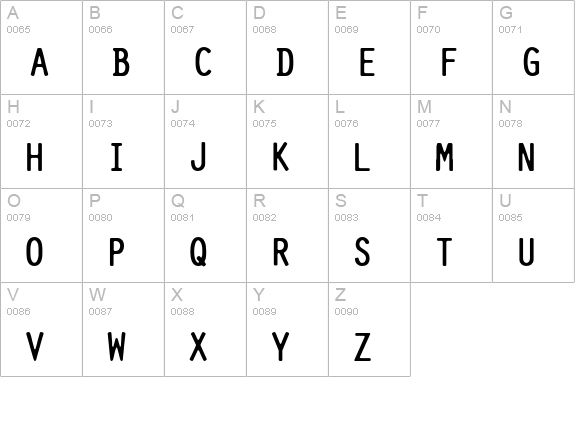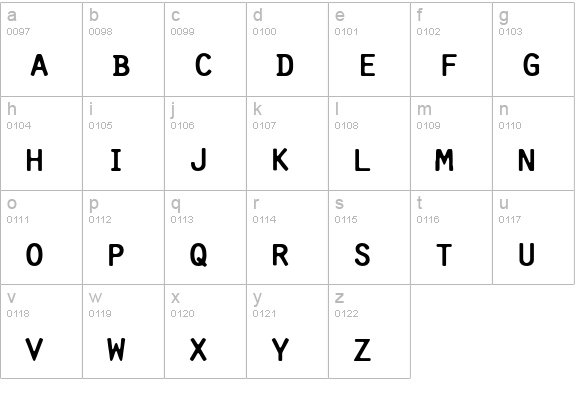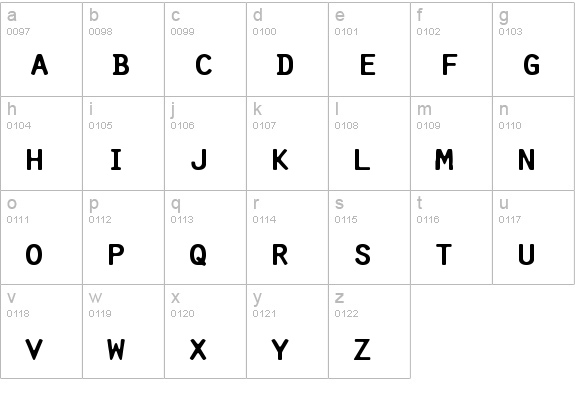
Pure-Capital Font Details
Pure-Capital font is a modern and sleek typeface that exudes sophistication and elegance. Its sharp, clean lines and bold capital letters make it perfect for creating eye-catching headlines, titles, and logos. This versatile font is suitable for a wide range of design projects, from branding and advertising to digital and print media. One of the best features of Pure-Capital font is that it is available for free download at FontsMarket.com. This means that you can easily access and use this high-quality font without any cost, making it a valuable asset for designers and creatives looking to enhance their projects with a touch of style and professionalism. With its timeless design and easy readability, Pure-Capital font is sure to make a lasting impression on your audience. Download it today and elevate your designs to the next level with this exceptional typeface.